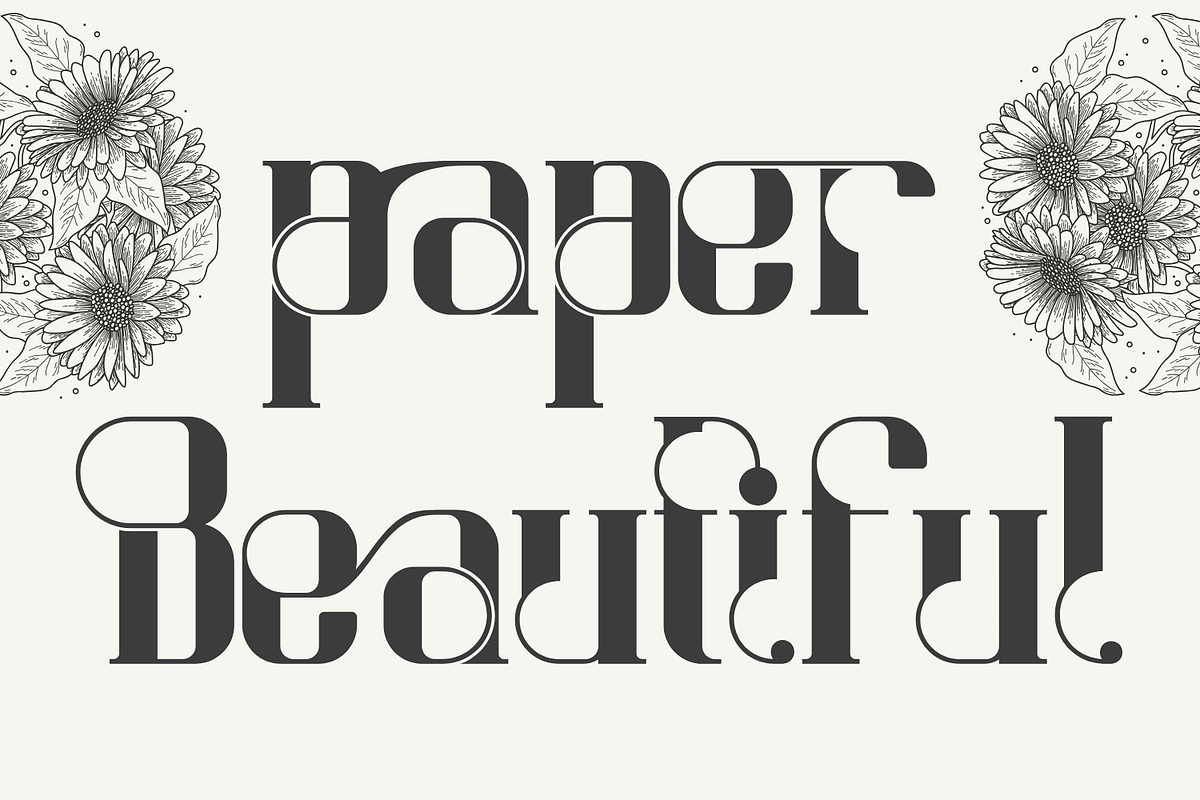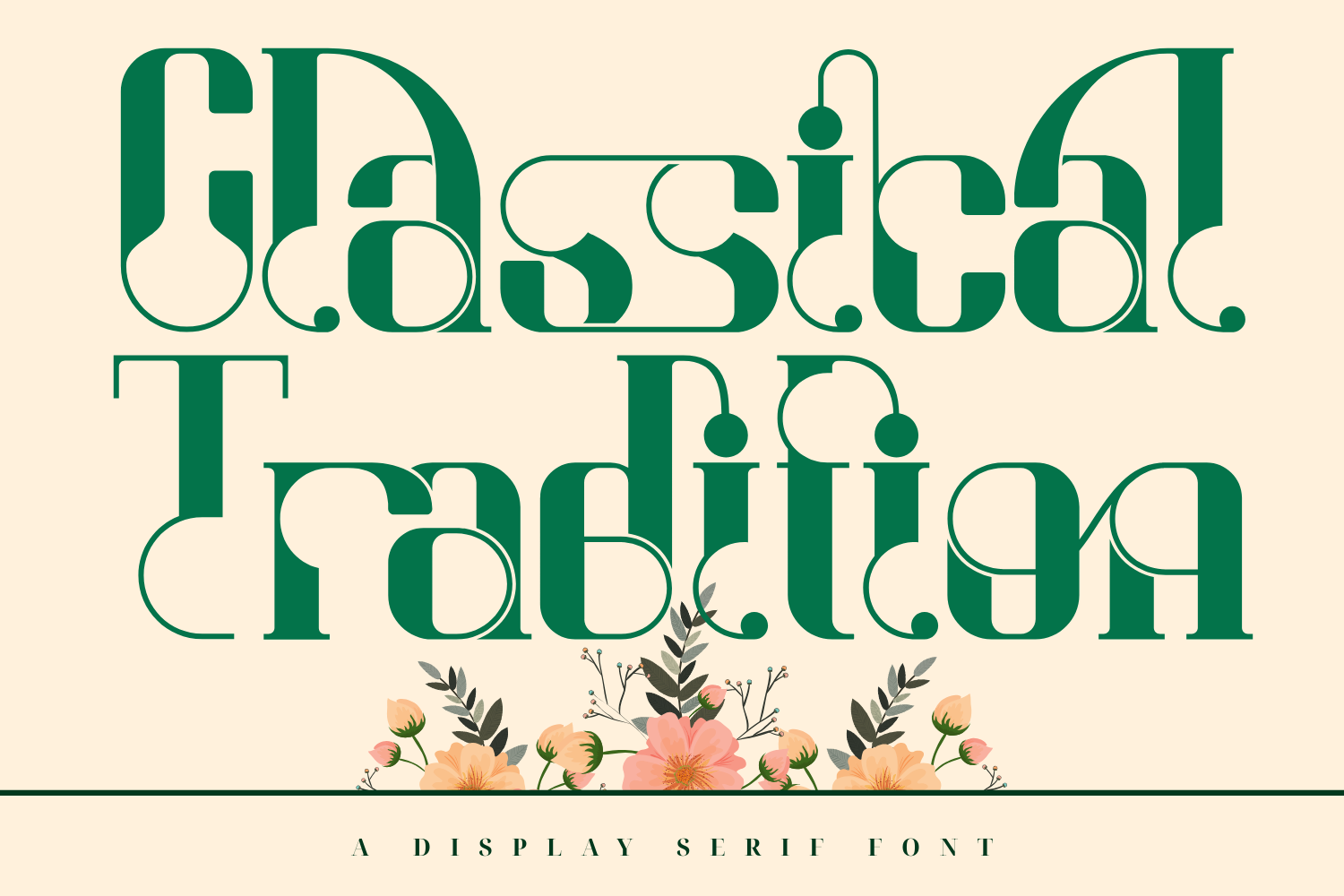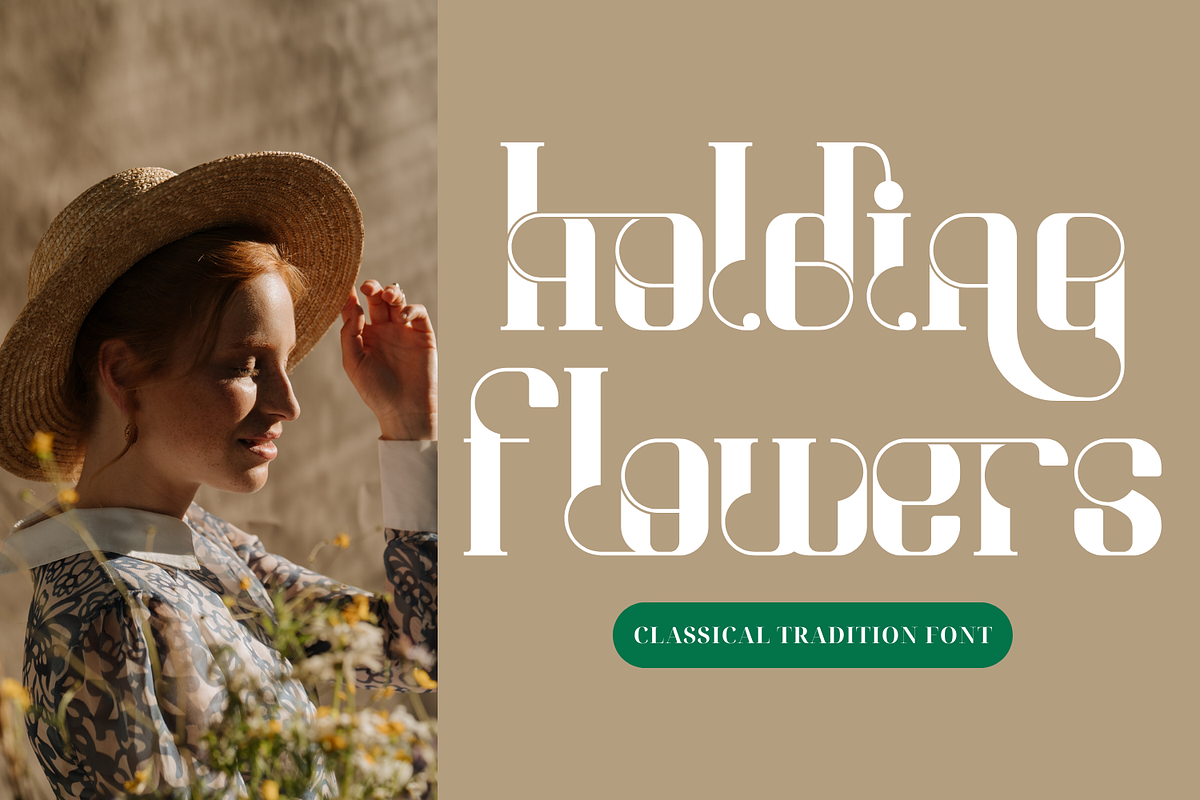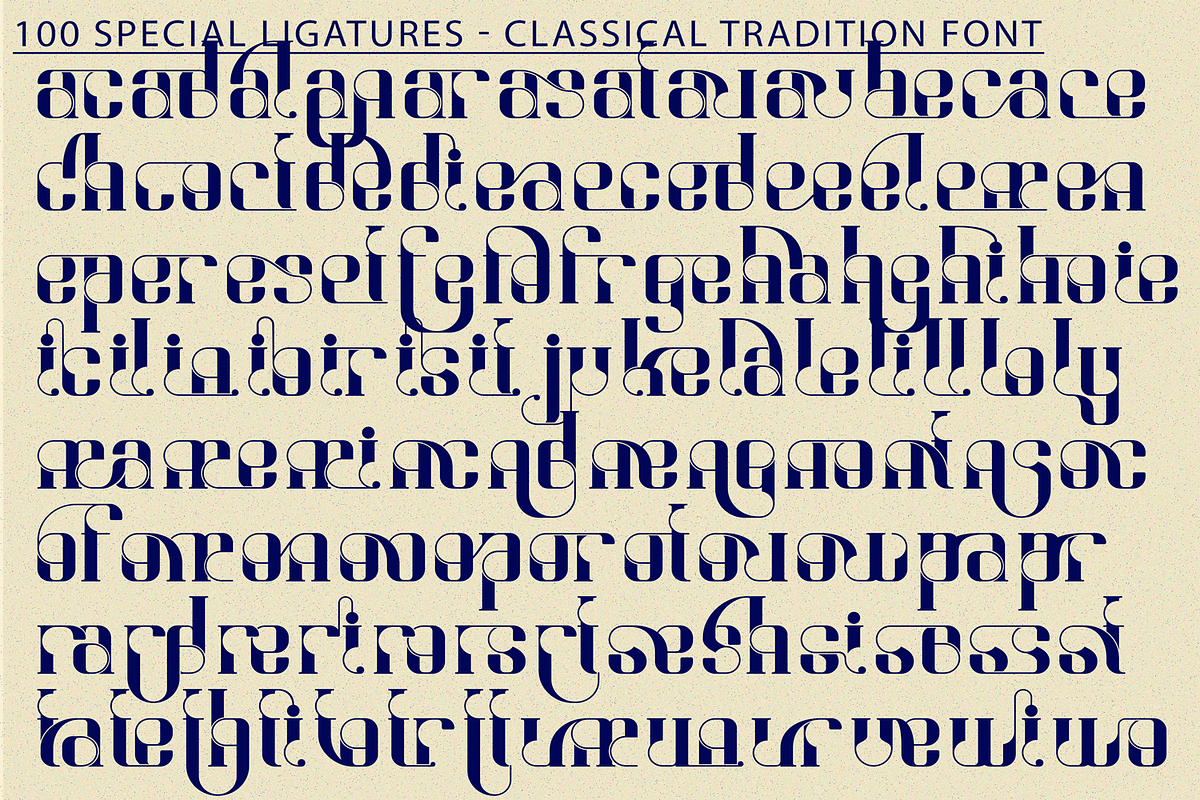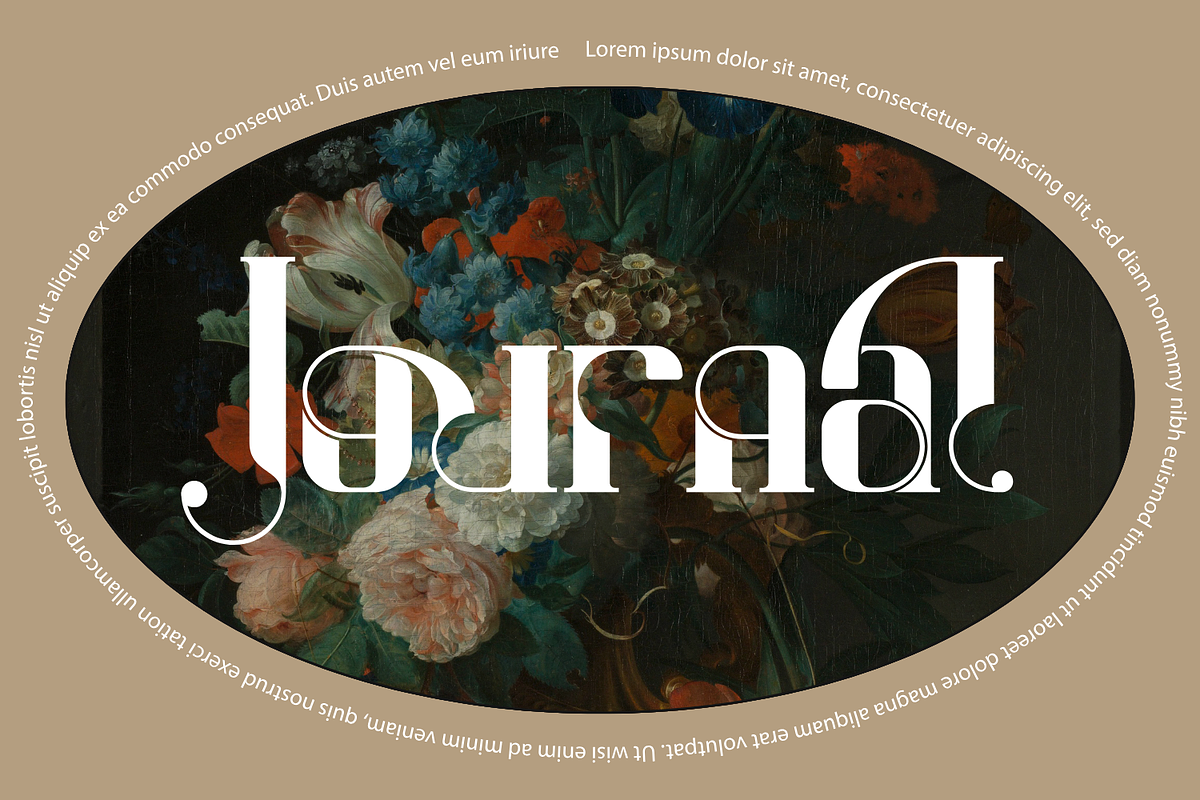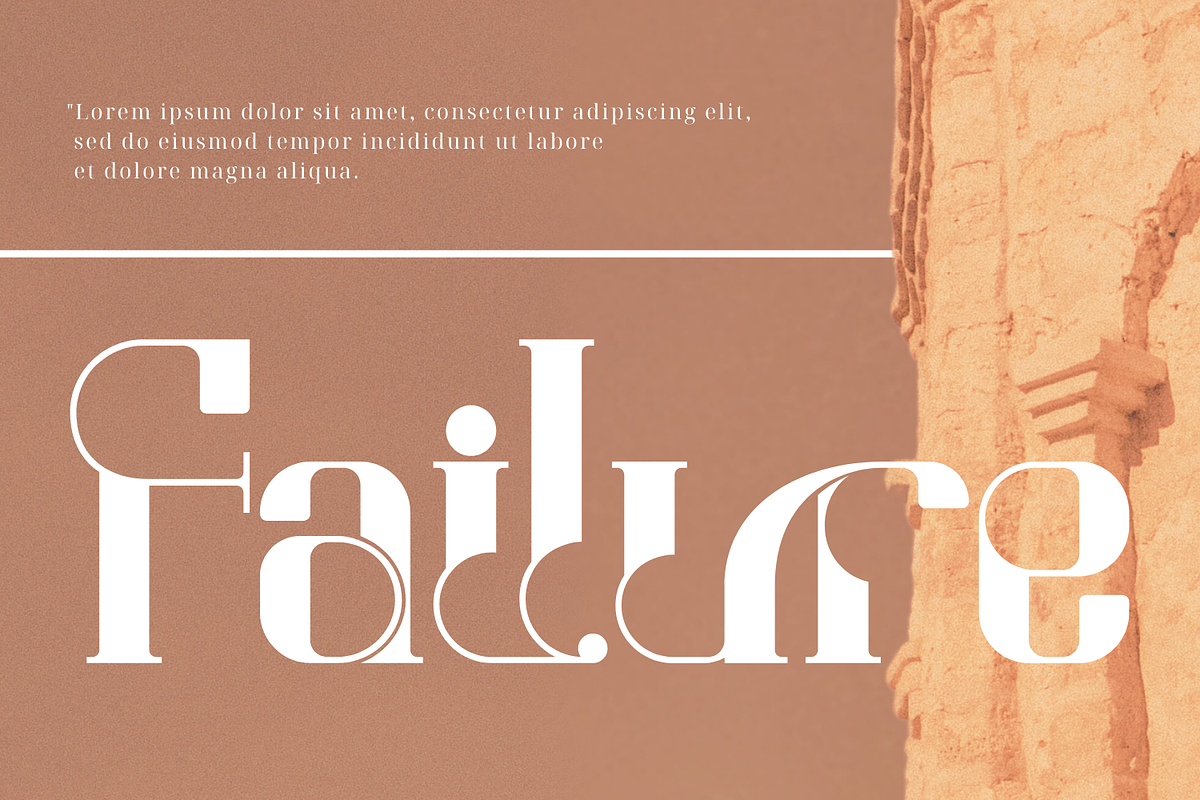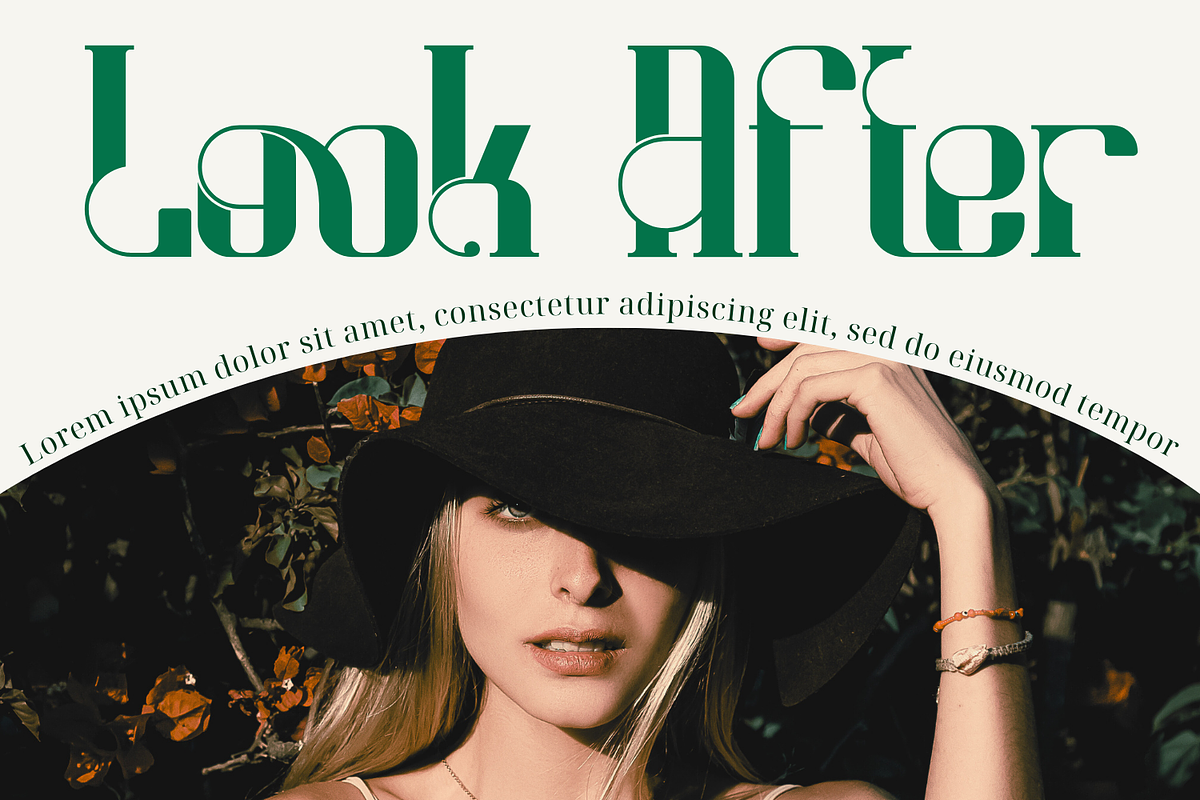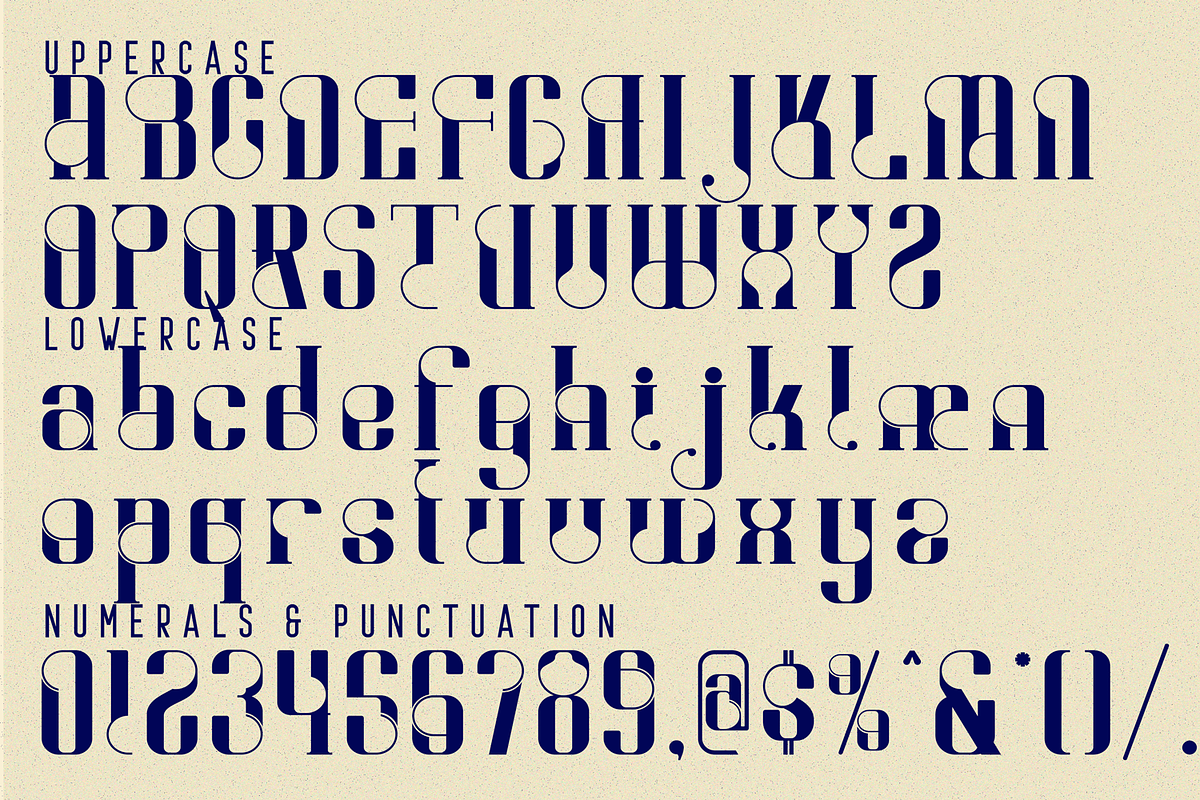
Classical Tradition - Geometric Font
Classical Tradition - Geometric Font– A Geometric Deco Display Typeface, a bold and stylish geometric display font that reimagines classic Art Deco influences through a modern, minimalist lens. With its sculptural letterforms, rounded counters, and rhythmic contrast, this font brings a touch of elegance and eccentricity to every design.
Carefully crafted to feel both classical and futuristic, Classical Tradition is ideal for editorial headlines, luxury packaging, fashion branding, posters, and logo designs that demand a unique visual identity.
- Uppercase & Lowercase Letters
- Around 100 Special Ligatures
- Accented Characters for multilingual support
About 100 ligatures combined with Stylistic Alternates Font:
ac ad al an ar as at au av be ca ce ch co ct de di ea ec ed ee el em en ep er es et fe fo fr ge ha he hi ho ie ic il in io ir is it ju ke la le li ll lo ly ma me mi nc nd ne ng no nt ns oc of om on oo op or ot ou ow pa pr ra rd re ri ro rs rt se sh si so ss st ta te th ti to tr tt um un ur ve wi wo